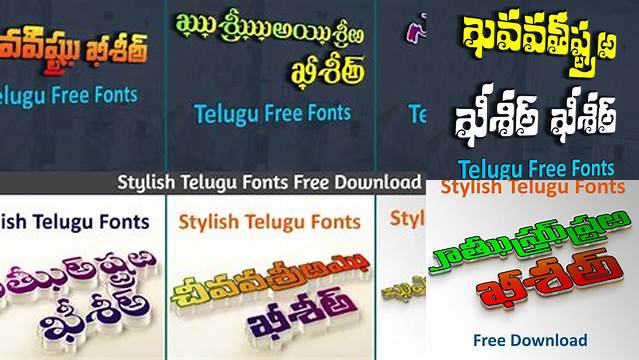
Hey guys! Are you looking to add a touch of Telugu flair to your Photoshop projects? You've come to the right place! Finding the perfect Telugu font can be a game-changer, whether you're designing posters, creating social media graphics, or working on any project that needs that authentic Telugu touch. In this article, we'll dive deep into the world of Telugu fonts, explore where you can find them for free, and how to use them effectively in Photoshop. So, let's get started and make your designs truly stand out!
Why Use Telugu Fonts in Photoshop?
Telugu fonts are essential for designers and creators who want to connect with Telugu-speaking audiences. Using the right font can significantly enhance the visual appeal and readability of your designs, making your message clear and engaging. Imagine you're creating a poster for a local Telugu festival; using a beautifully designed Telugu font can instantly capture the cultural essence and draw people in. Without the right font, your message might not resonate as strongly, and you could miss out on connecting with your target audience effectively.
Moreover, the aesthetic appeal of your designs is dramatically boosted by the appropriate Telugu font. Telugu script, with its elegant curves and intricate letterforms, has a unique charm that can add sophistication and authenticity to your work. A well-chosen font can transform a simple design into a visually stunning piece, making it more memorable and impactful. For instance, if you're designing a wedding invitation, a traditional Telugu font can add a touch of elegance and cultural significance, setting the tone for the event right from the first glance.
Furthermore, readability is a key factor in design, especially when dealing with different scripts. High-quality Telugu fonts are designed with clarity in mind, ensuring that your text is easy to read and understand. This is crucial for ensuring that your message is effectively communicated, whether it's in a headline, body text, or any other design element. A font that is poorly designed or too stylized can hinder readability, potentially confusing your audience and diminishing the impact of your message. Therefore, selecting a font that balances aesthetics with legibility is vital for successful design.
Using Telugu fonts also allows you to connect with your audience on a deeper level. Language is a powerful cultural identifier, and using a script that your audience can relate to shows that you understand and respect their heritage. This connection can be particularly important in marketing and advertising, where cultural relevance can significantly influence consumer engagement and brand loyalty. By using Telugu fonts, you demonstrate a commitment to inclusivity and cultural sensitivity, which can enhance your brand's image and build stronger relationships with your audience.
Finally, having a variety of Telugu fonts in your design toolkit opens up a world of creative possibilities. Each font has its unique personality and style, allowing you to experiment and find the perfect match for your project's tone and message. Whether you're looking for a font that is modern and sleek or traditional and ornate, having a diverse selection enables you to craft designs that are both visually appealing and culturally relevant. This versatility is invaluable for designers who work on a wide range of projects and need to cater to different audiences and design aesthetics.
First and foremost, Google Fonts is an incredible resource for designers. It boasts a vast library of open-source fonts, including a growing selection of Telugu fonts. The best part? All fonts on Google Fonts are completely free to use, both for personal and commercial projects. This makes it an ideal starting point for anyone looking to expand their font collection without breaking the bank. Google Fonts makes it easy to preview fonts, download them, and even embed them directly into your website. The platform's user-friendly interface allows you to filter fonts by language, style, and other criteria, making it simple to find the perfect Telugu font for your specific needs. Whether you're working on a website, a print project, or anything in between, Google Fonts has something for everyone.
Font Squirrel is another fantastic website that offers a wide range of high-quality, free fonts. What sets Font Squirrel apart is its commitment to providing fonts that are licensed for commercial use. This means you can confidently use any font you download from Font Squirrel in your professional projects without worrying about licensing issues. The site features a curated collection of fonts, ensuring that everything available is top-notch. Font Squirrel also offers a handy Font Identifier tool, which can help you identify a font you've seen in an image, making it easier to find similar styles. The site's clean design and intuitive navigation make it a pleasure to browse, and its focus on commercial-use fonts provides peace of mind for designers.
DaFont is a popular font archive that has been a go-to resource for designers for many years. It offers an extensive collection of fonts, including a variety of Telugu fonts. DaFont's fonts come with different licenses, so it's crucial to check the licensing terms for each font before using it in your projects. Many fonts are free for personal use, while others may be free for commercial use or require a license purchase. The site's user-friendly interface allows you to easily search for fonts by category, style, or designer. DaFont's vast selection and long-standing reputation make it a valuable resource for finding unique and interesting fonts, but always remember to verify the license to ensure you're using the font appropriately.